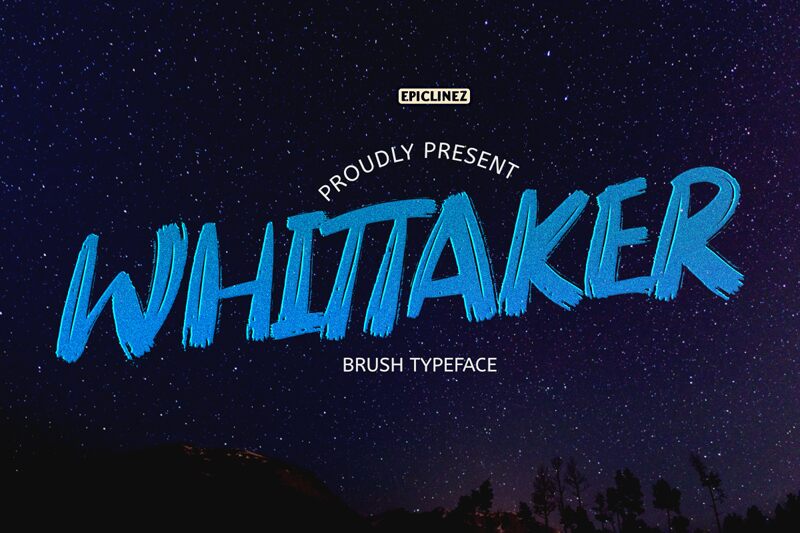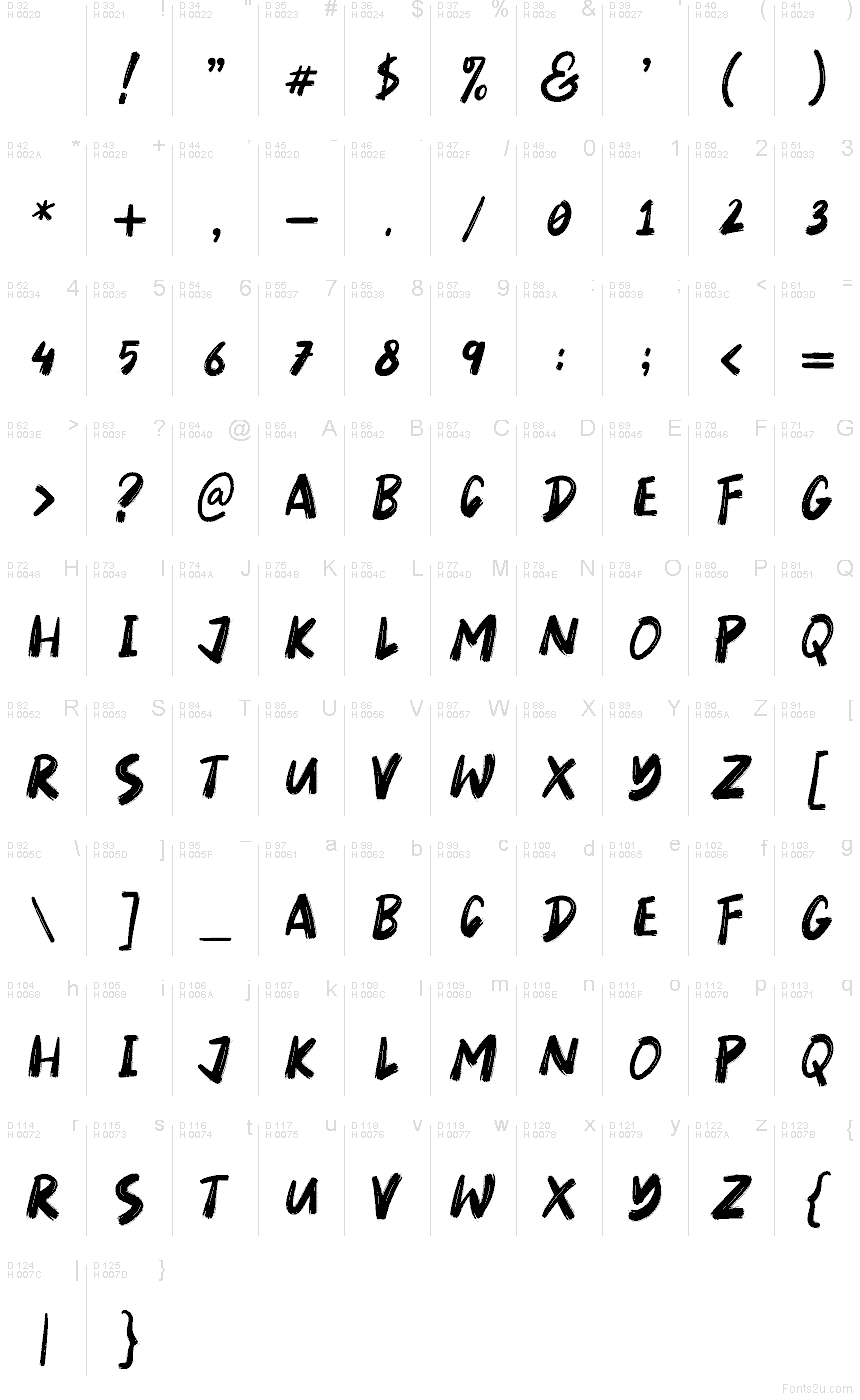
Whittaker font by Epiclinez is a free brush font that looks like it’s been slashed onto the page with a dry, inky marker. Every letter is packed with jagged strokes, streaky texture, and uneven edges that feel restless and loud, as if they’re vibrating off the background. The condensed forms help the words punch through even in tight spaces, giving you bold energy without eating up the entire layout.
Using Whittaker, you get instant attitude for posters, album covers, streetwear branding, social media graphics, sports promos, and bold headline treatments. This free font thrives at larger sizes where the rough, brushed grit really shows, while a clean sans serif underneath can handle any smaller supporting text.